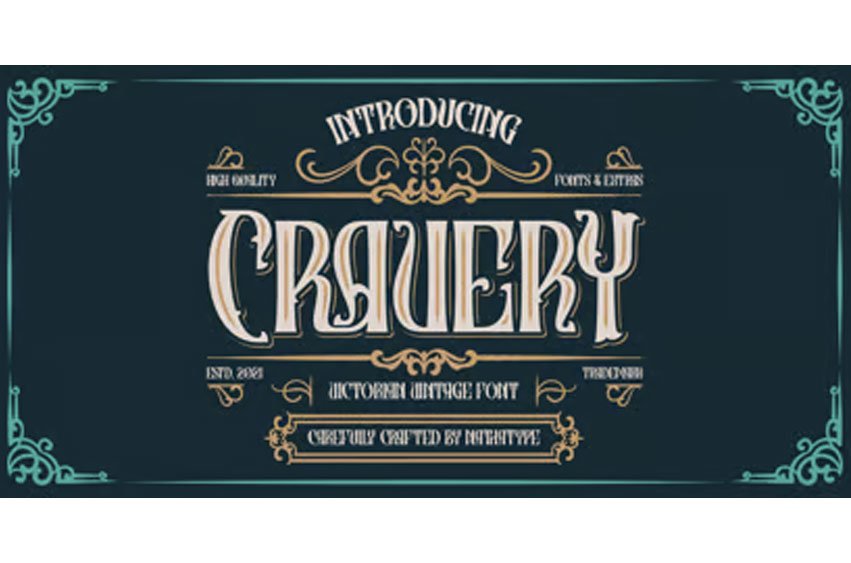
Cravery Font
Cravery Font is a a typeface that is made all in uppercase. An excellent choice to add the right amount of retro vibes. This typeface with artistic style looks very interesting for loads of different projects and promotions. A great all-in-one package for your logo, book cover, poster, t-shirt, branding, and advertisement needs.